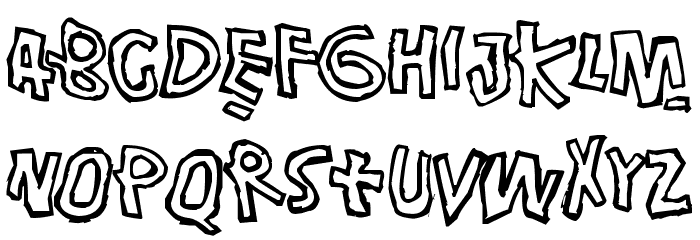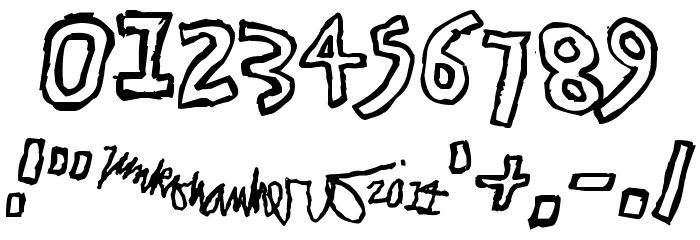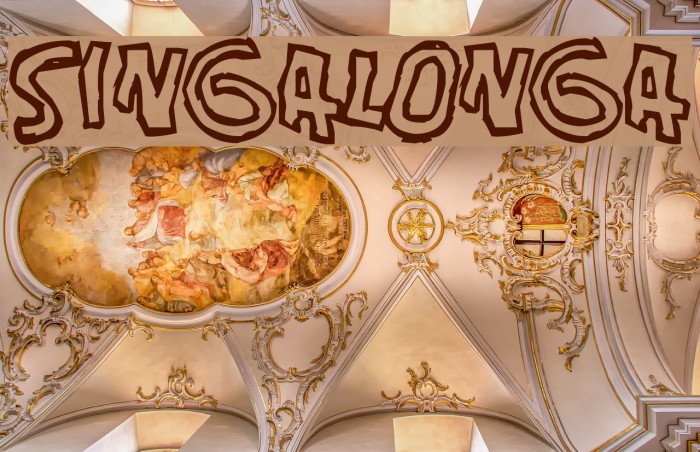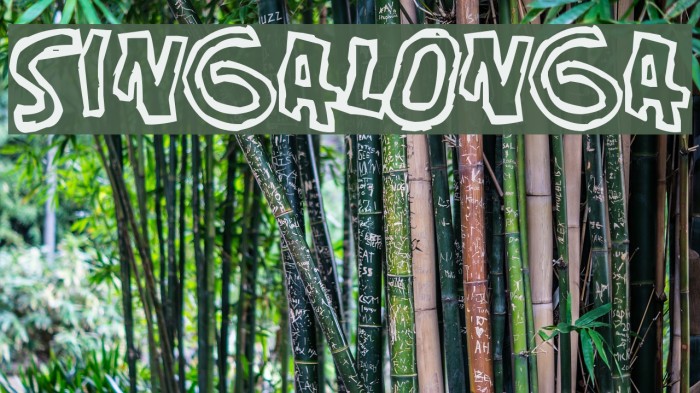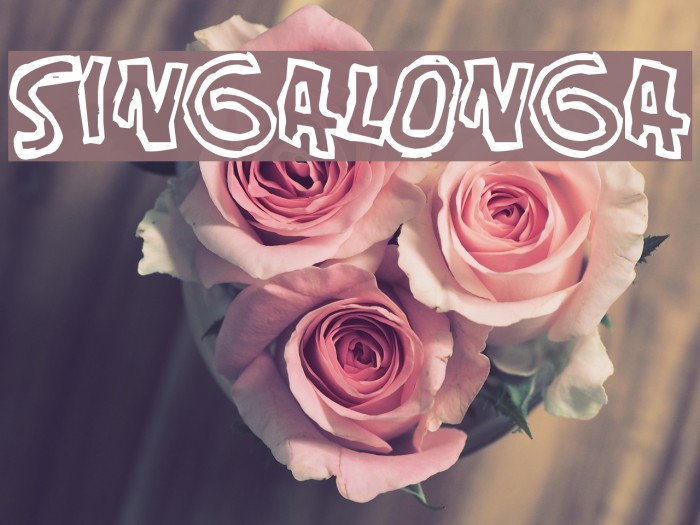
Singalonga Font
This font exhibits a playful and bold style, characterized by its hand-drawn appearance and irregular, jagged edges. The letters are uppercase and lowercase, with a consistent thickness that gives them a cartoonish and informal feel. The numbers and special characters maintain this quirky aesthetic, making the font suitable for creative and fun projects. The overall design is reminiscent of graffiti or doodles, adding a sense of spontaneity and energy. The font's unique style makes it stand out, perfect for projects that require a touch of whimsy and creativity.
A playful, hand-drawn font with a bold, cartoonish style.
- Proposed Projects: Ideal for children's books, comic strips, playful posters, and creative branding.
- Overall Style: Playful, Cartoonish, Hand-drawn
- Use Case: Headlines, Posters, Creative Branding